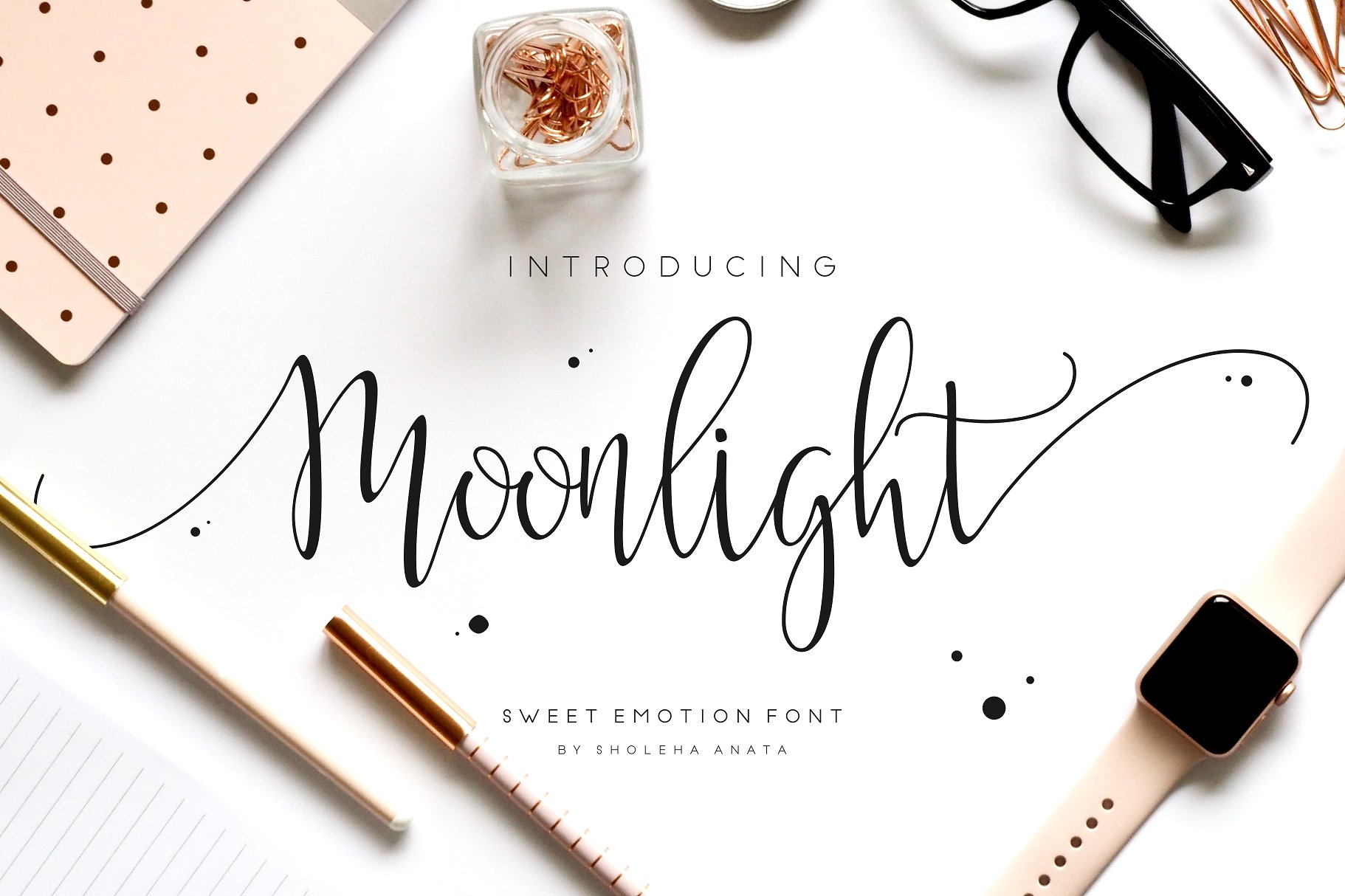
Moonlight Handwriting
Moonlight Handwriting Font
Introducing my first “Moonlight” script font – a modern with sweet emotion handwriting font script.
Moonlight font was created to look a modern handwritten script by including 4 types which are regular, light, bold and alt.
The script has an alternate upper and lowercase character full set, as well as some of Standard Ligatures – allowing you to make your design truly beautiful.